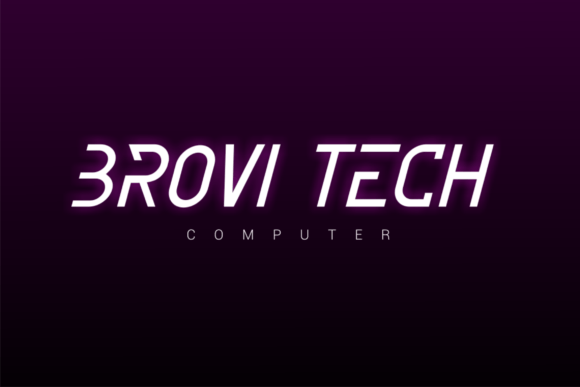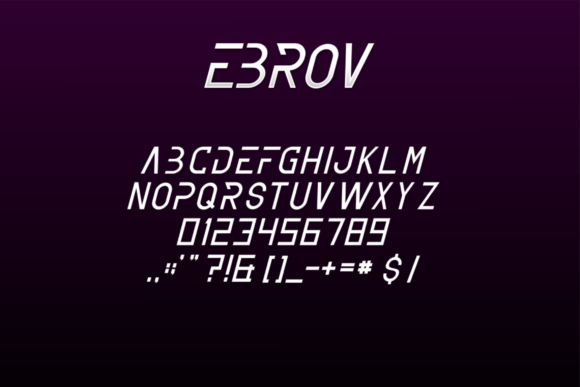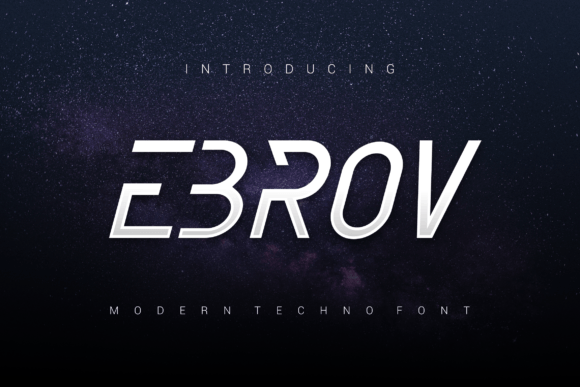
Introducing Ebrov Font: The Epitome of Modern Sophistication
In the realm of typography, fonts play a pivotal role in conveying the essence of a design. Among the myriad of fonts available, Ebrov stands out as a beacon of modernity and sophistication. This cutting-edge font is meticulously crafted to reflect the future, making it an ideal choice for designers and crafters seeking to infuse their projects with a touch of luxury.
The Genesis of Ebrov Font
Ebrov’s design is deeply rooted in the advancements of today’s technology, with a vision to evolve and become even more sophisticated in the future. This forward-thinking approach is evident in its sleek lines, precise curves, and the overall aesthetic that exudes a sense of futurism. The inspiration behind Ebrov is not just to keep pace with the current design trends but to set new benchmarks in the world of typography.
Key Features of Ebrov Font
- Modern Design: Ebrov boasts a contemporary design that aligns with the latest trends in graphic design, making it perfect for projects that demand a fresh and modern look.
- Sophisticated Aesthetic: The font’s sophisticated appearance is characterized by its clean and elegant features, which can elevate any design project to new heights of luxury and refinement.
- Versatility: Ebrov’s versatility is one of its standout qualities. It can be seamlessly integrated into a wide range of design projects, from branding and advertising to web design and digital media.
- Legibility: Despite its futuristic design, Ebrov does not compromise on legibility. Its clear and readable characters ensure that the message is conveyed effectively, making it suitable for both digital and print media.
Applications of Ebrov Font
Ebrov’s luxurious and modern appeal makes it an excellent choice for various design applications. Here are a few areas where Ebrov can make a significant impact:
- Branding and Logo Design: Ebrov can help create a lasting impression with its unique and sophisticated design, making it ideal for brands aiming to establish a strong identity.
- Advertising and Marketing Materials: The font’s modern and luxurious feel can add a professional edge to advertising and marketing materials, helping businesses to stand out in a crowded marketplace.
- Web Design: Ebrov’s legibility and aesthetic appeal make it a great choice for web design. It can enhance the user experience by providing a clean and engaging interface.
- Digital Media: For digital content creators, Ebrov offers a sophisticated look that can elevate the visual appeal of videos, presentations, and social media graphics.
Why Choose Ebrov Font?
In a world where design trends are constantly evolving, Ebrov font emerges as a timeless choice for designers and crafters. Its unique blend of modernity and sophistication, inspired by the advancements of today’s technology and a vision for the future, makes it a valuable asset for any design project. By choosing Ebrov, you are not just selecting a font; you are embracing a design philosophy that is geared towards the future.
Ebrov font is more than just a typeface; it’s a statement of luxury, modernity, and sophistication. Whether you’re a designer looking to create a brand identity, a marketer aiming to capture the attention of your audience, or a crafter seeking to add a touch of elegance to your projects, Ebrov is the perfect choice. With its futuristic design and versatile application, Ebrov is poised to become a favorite among design enthusiasts. Embrace the future of design with Ebrov font and add a spark of luxury to your creations.